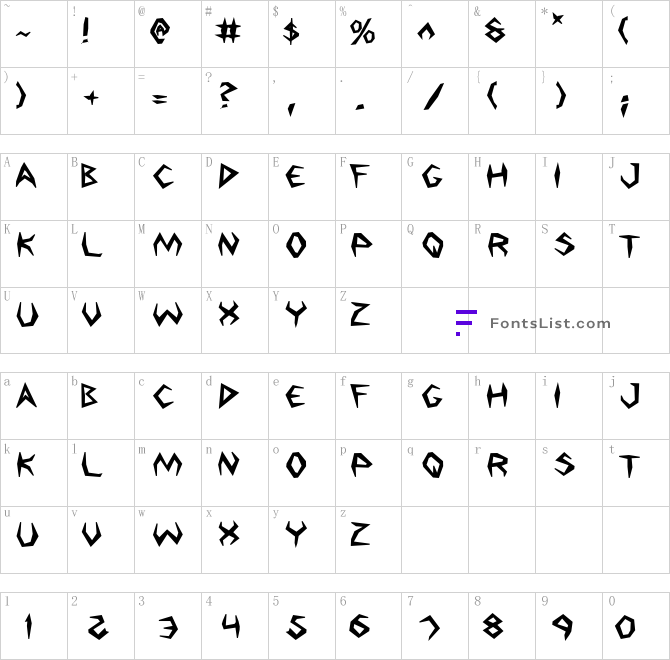
- Font Name:Argosy Bold
Argosy-Bold.ttf is a very beautiful artistic font, Argosy-Bold.ttf is widely used in the design and printing of various books and pictures,Argosy-Bold.ttf has a strong visual impact,Argosy-Bold.ttf is a commonly used font in newspapers, magazines and books, and is used in posters, e-commerce Poster design, store design, logo design, font design and other fields.Argosy-Bold.